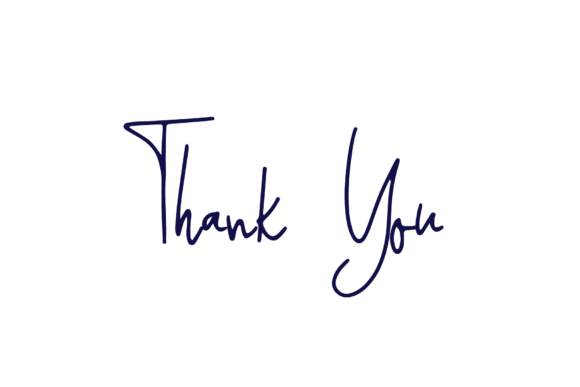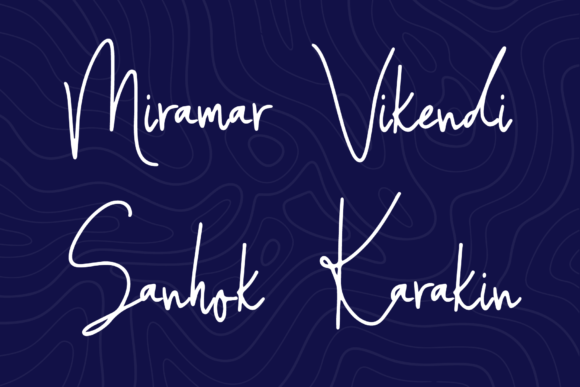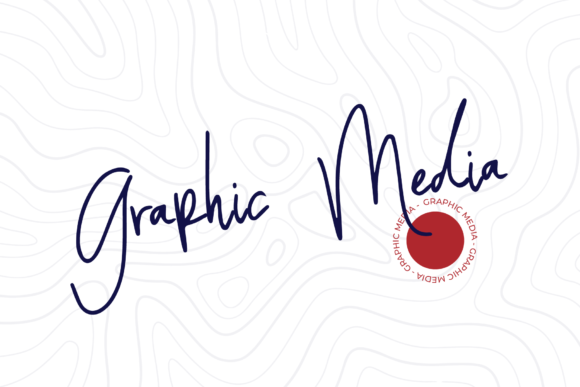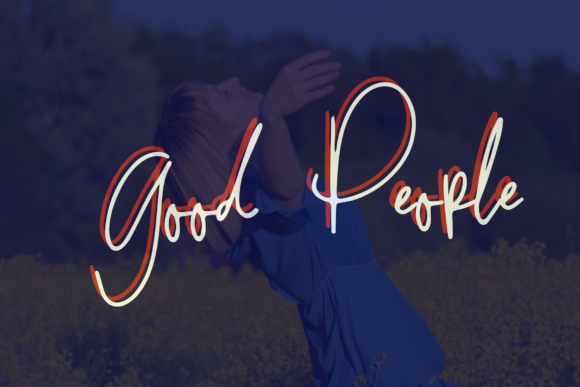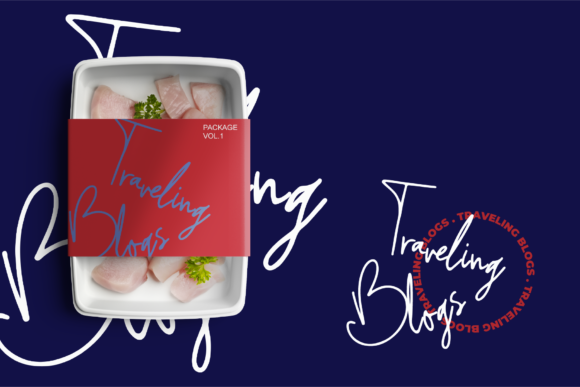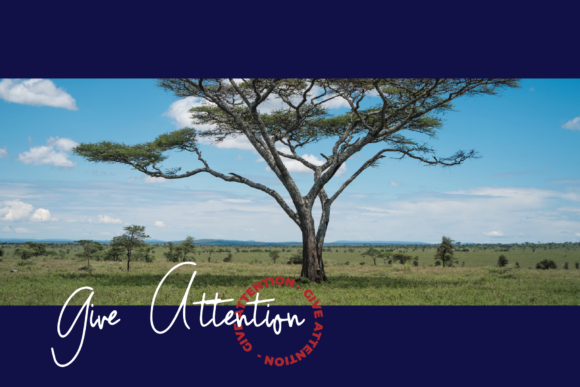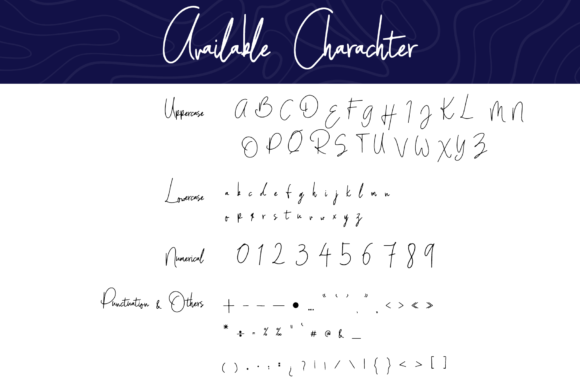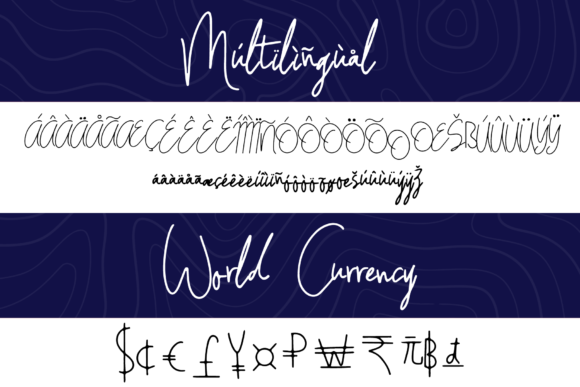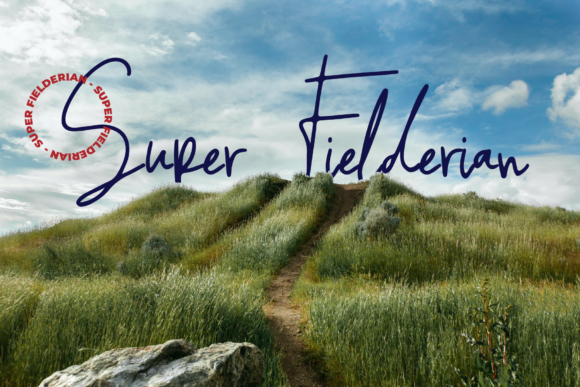
Erangel Field Font
About Erangel Field Font
Erangel Field is a unique and elegant handwritten font. It looks beautiful on a variety of designs requiring a personalized style, such as wedding invitations, thank you cards, weddings, greeting cards, logos and so on.